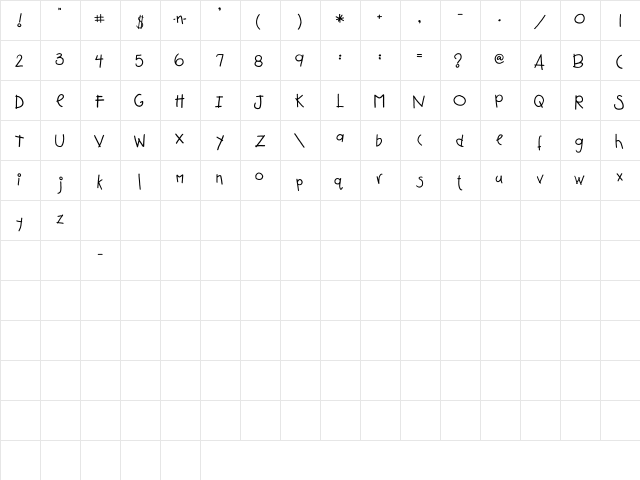
2Peas Picnic Basket 2Peas Picnic Basket Font Preview
2Peas Picnic Basket 2Peas Picnic Basket
2Peas Picnic Basket 2Peas Picnic Basket Font Details
Design Context for 2Peas Picnic Basket Typeface
2Peas Picnic Basket offers clean, dependable letterforms without strong stylistic allegiance, making it a practical choice for designers who need flexibility.